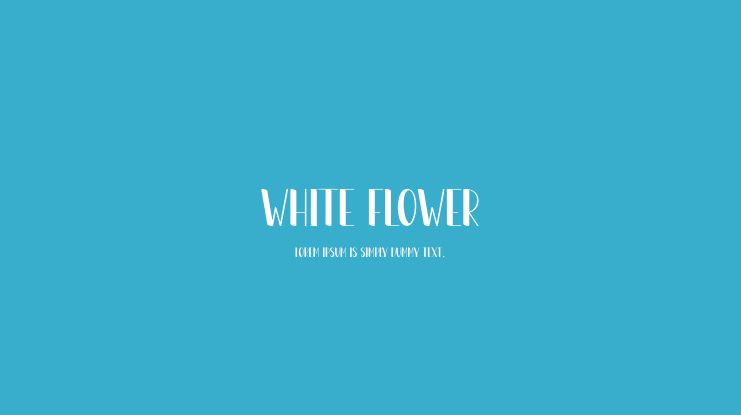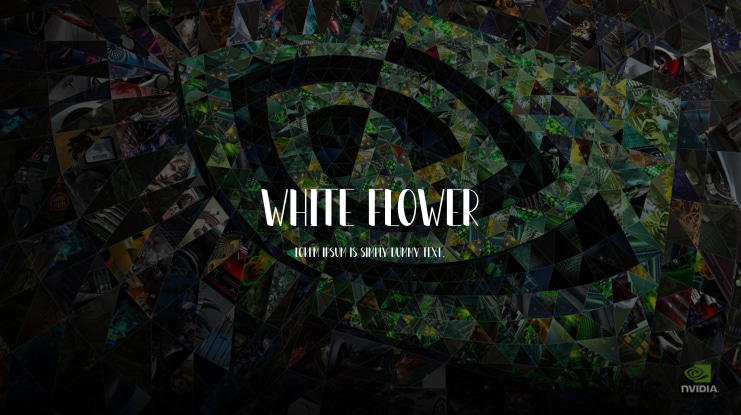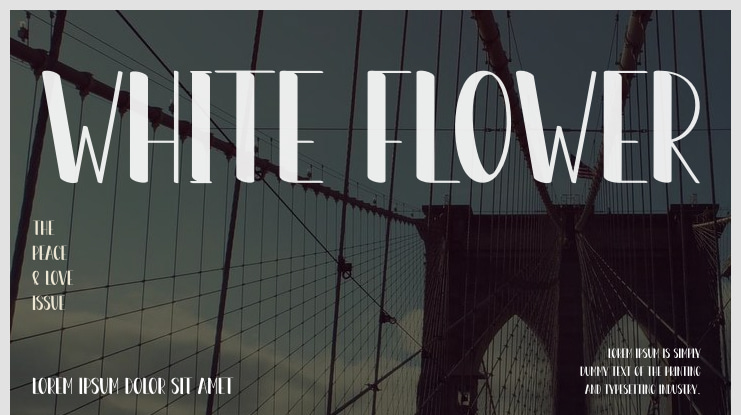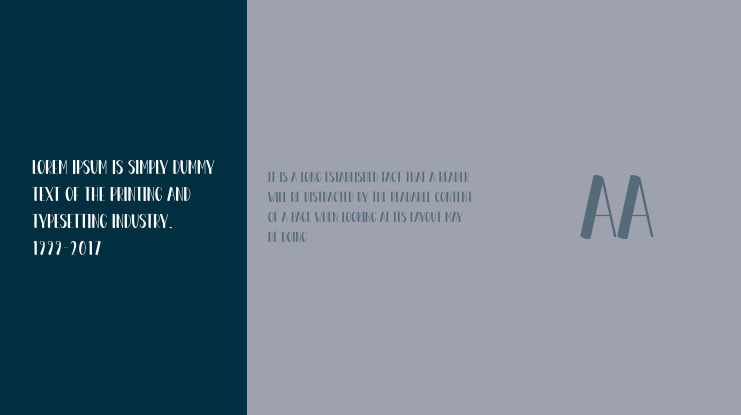
White Flower Font
Our latest stylish fonts are ideal for wall decorations, wedding invites, social media content, logos, advertisements, packaging, design projects, labels, photography, watermarks, invitations, stationery, and any creative endeavor that demands elegant handwriting.